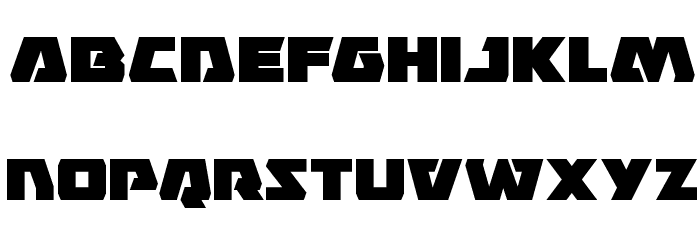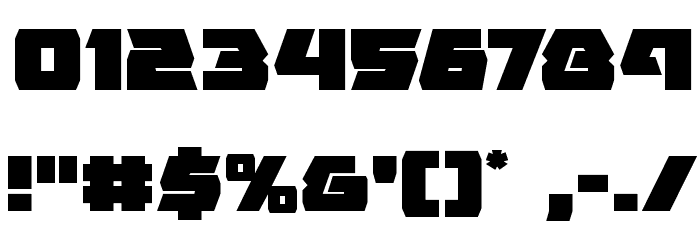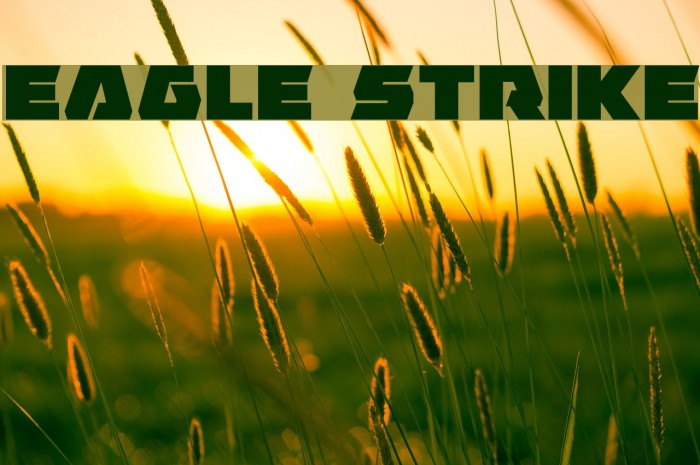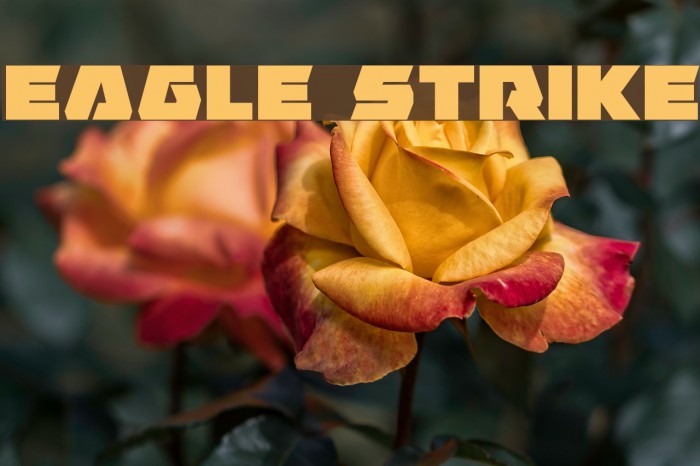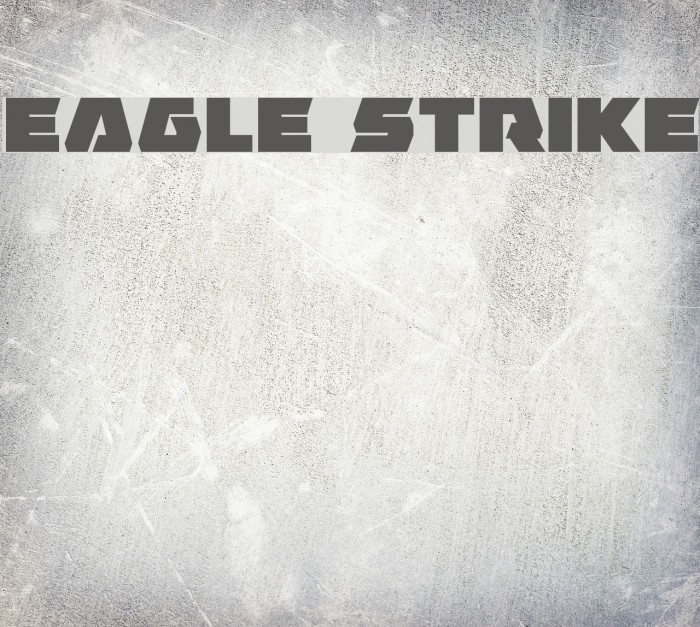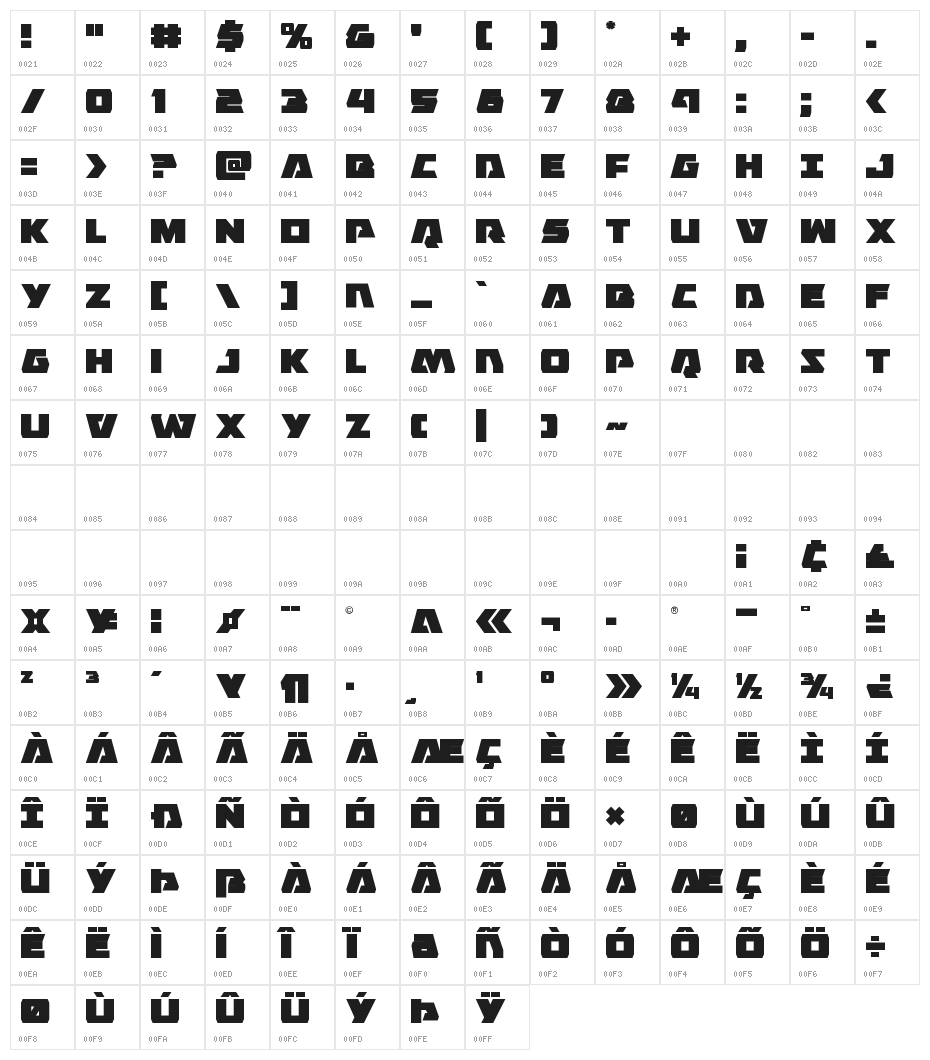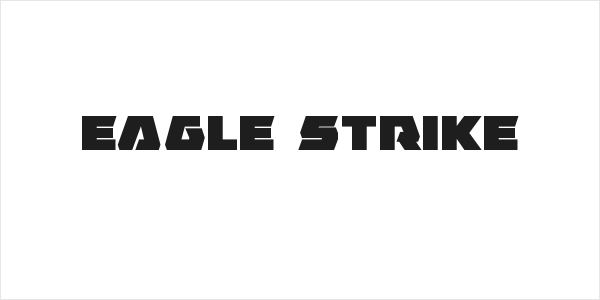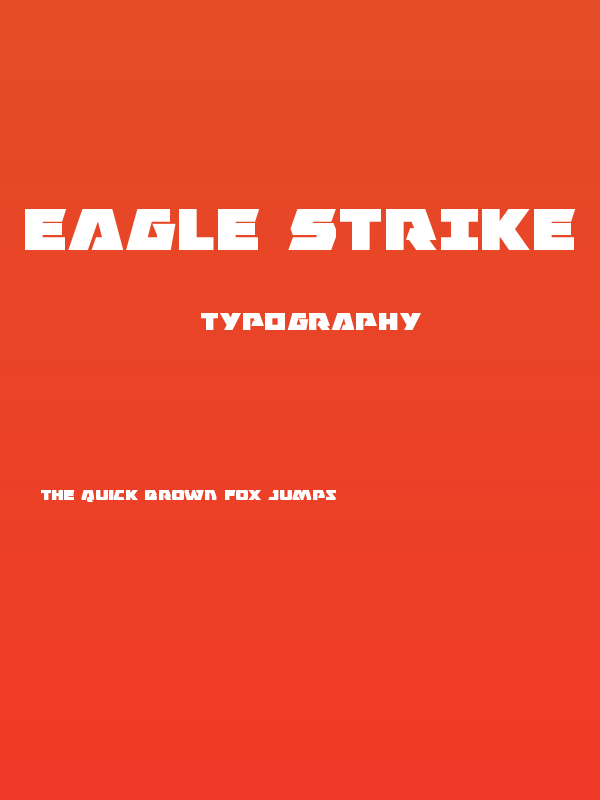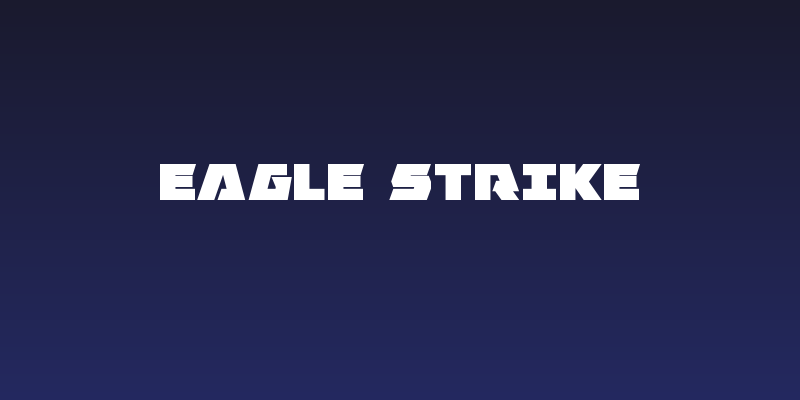
Eagle Strike Font
This font features a bold, angular design with a strong geometric influence. The characters are constructed with sharp edges and a blocky appearance, giving it a futuristic and aggressive look. The uppercase and lowercase letters maintain a consistent style, with the lowercase slightly smaller but equally bold. Numbers and special characters follow the same design principles, ensuring uniformity across all glyphs. The font's distinct style makes it stand out, ideal for projects that require a commanding and modern aesthetic.
A bold, angular font with a futuristic, geometric design.
- Proposed Projects: Ideal for video game titles, sports team logos, action movie posters, and branding that requires a strong, modern presence.